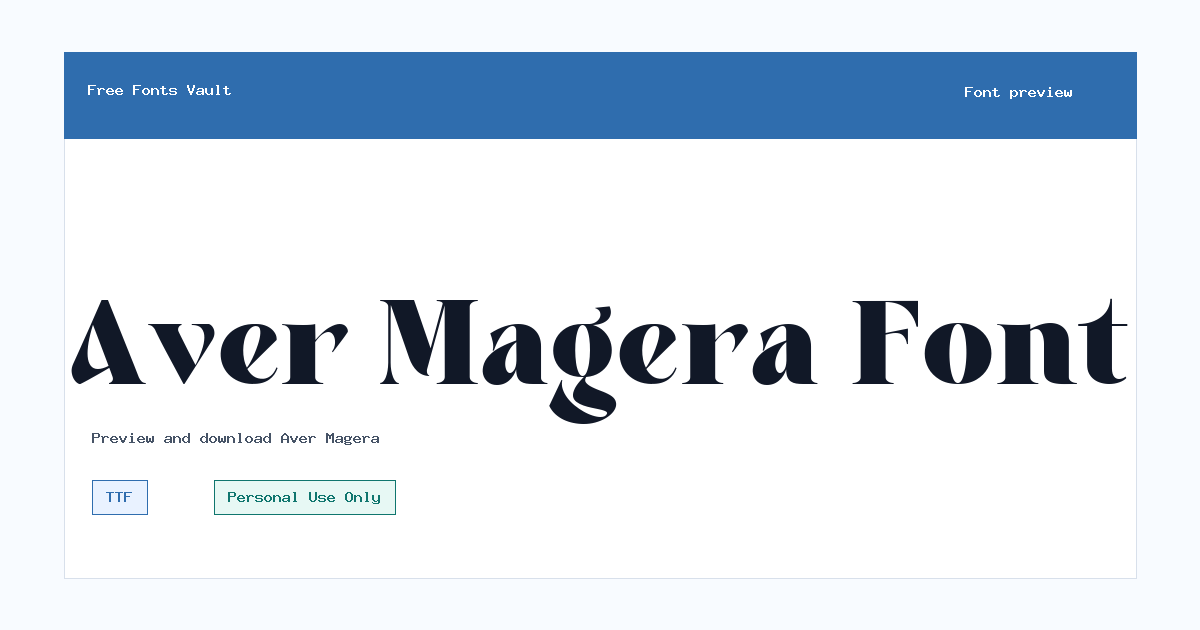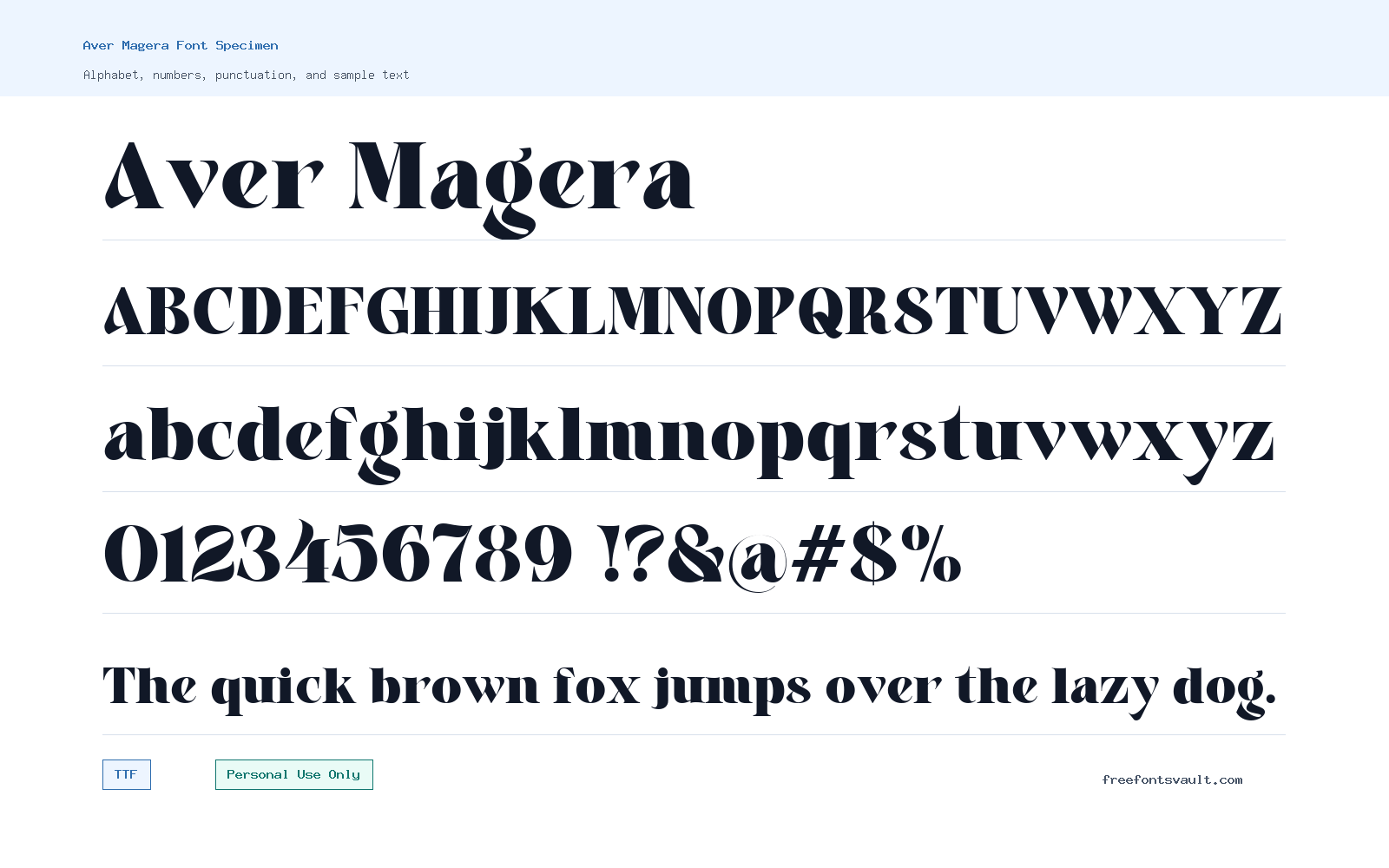
Aver Magera
Aver Magera font.
Aver Magera is a serif font family from Rvandtype with regular and italic styles. It is a good choice to test when you want a text face with a more traditional serif feel, especially for titles, short paragraphs, and design mockups.
About Aver Magera Font
Aver Magera gives visitors two useful styles to work with: a standard upright cut and an italic cut. That makes it more flexible than a single-style display font, because you can set a main heading in the regular style and use the italic for emphasis, captions, quotes, or supporting text. Since the files are TTF format, the font is straightforward to install on most desktop systems and can also be tested in common design apps before you commit to a layout.
Use the preview box to check how Aver Magera behaves with your own words before downloading. Try a brand name, a page title, a short quote, and a few lowercase-heavy lines. Serif fonts can look very different depending on size, spacing, and background contrast, so test it at the size you plan to use. For clean layouts, pair it with a plain sans serif for menus, small labels, or longer body copy. Keep the italic style for selective emphasis rather than setting large blocks of text, unless the preview remains comfortable to read.
- Includes regular and italic styles for basic hierarchy and emphasis.
- Serif classification makes it useful for titles, quotes, editorial-style layouts, and refined short text.
- Headlines, blog titles, and editorial-style page headers.
- Short quotes, invitations, posters, and social graphics.
- Logo drafts, personal branding concepts, and portfolio mockups.
- Pairing with a simple sans serif in layouts that need contrast.
What font styles are included?
What kind of font is Aver Magera?
Aver Magera is identified as a serif font, so it is best tested for titles, short text, quotes, and editorial-style designs.